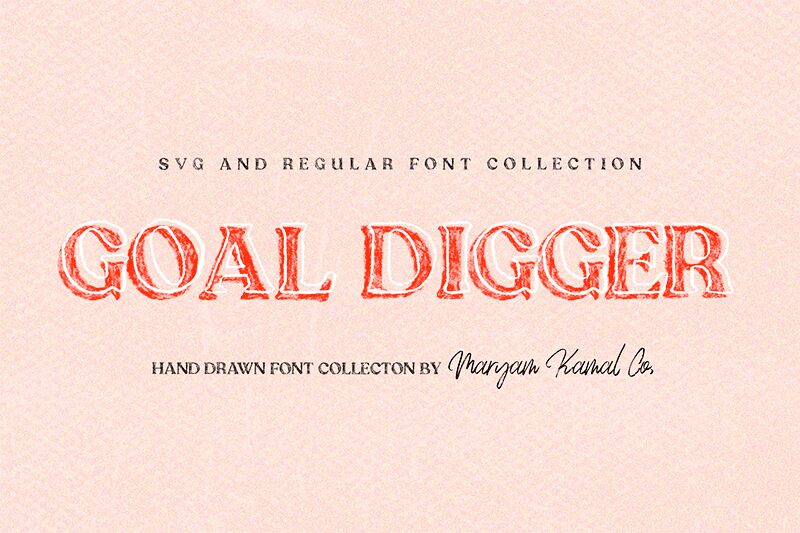
Goal Digger font by ReveryWorks is an eroded display typeface with a rough texture and distressed appearance, giving it an intriguing nostalgic feel. It evokes a casual essence and is inspired by vintage displays, yet in its own unique way which gives this free fonts its modern edge.
These characteristics make Goal Digger suitable for packaging designs, headlines in printed or digital newspapers and magazines, branding projects, signboards, billboards, movie and theater posters. It’s also ideal for advertisements placed on subway stations, airports and taxi stops. Use it in typography-centered t-shirt designs for a truly charming outcome!